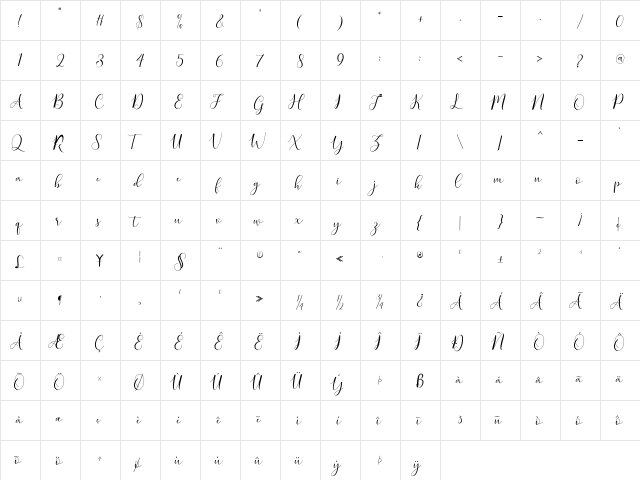
Zellora Script Regular
Design Context for Zellora Script Typeface
Zellora Script flows with the natural rhythm of handwritten lettering, making it ideal for designs that call for warmth and personal expression.
Font Pairing: Combine Zellora Script with a simple geometric sans for maximum contrast — the tension between flowing curves and clean structure is a classic typographic pairing.
Pro Tip: Pair Zellora Script with a clean sans-serif for supporting text. The contrast between fluid script and geometric structure creates an elegant typographic hierarchy.